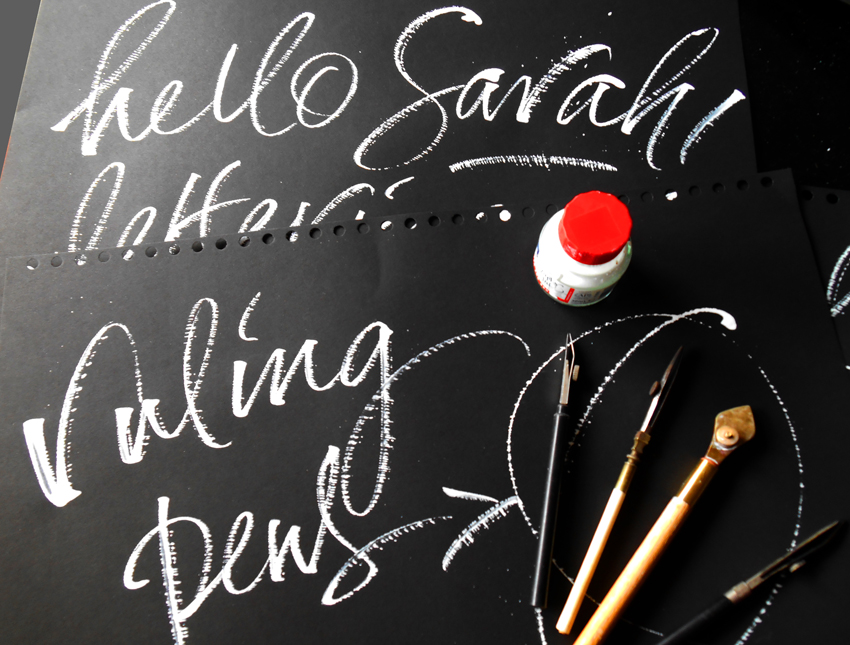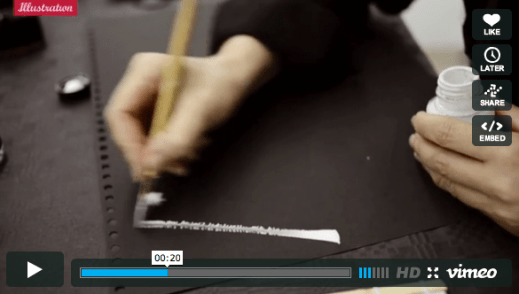
#LDF13 ‘Expressive’ by Ruth Rowland
#LDF13 ‘Expressive’ by Ruth Rowland
Ruth Rowland is a lettering artist who specialises in calligraphy, expressive typography and hand drawn ink on paper. We are delighted that she’ll be joining us for the drop in workshops at the V&A. Rowland explains her approach to her word ‘Expressive’…
Expressive Ruth Rowland
“I submitted a piece of work for the exhibition, we had to choose a word that described London. I was drawn to the word ‘Expressive‘ as it reflects what I love most about London – its dynamic, ever-changing cultural scene. In addition, it’s a term often used to describe the loose, gestural nature of much of my work.
“I like to experiment with mark making, tools can vary from the beautifully hand crafted ruling pen used here, to a piece of old stick from my mother’s garden. Pens and brushes are the tools of my trade, I’ve been collecting them for years, I like the fact that each one has its own distinctive characteristics.”
“Things can get messy with expressive mark making, the studio looked like an explosion in an ink factory after a morning working on the project. If you’d like to see me in action, I demonstrated at ScrapbookLive. Luckily, Sarah Hyndman, type enthusiast and work shop leader extraordinaire, isn’t frightened of a bit of mess and I’ll be helping out at the workshops on the 14th and 15th September. So if you like to get hands on too, then roll up your sleeves and come along.”
For Rowland it’s all about letters – wild or elegant, casual or ornate, edgy or playful … she loves to combine old and new technology. In her studio you’ll find antique dip ink pens and Japanese brushes lying next to her computer.